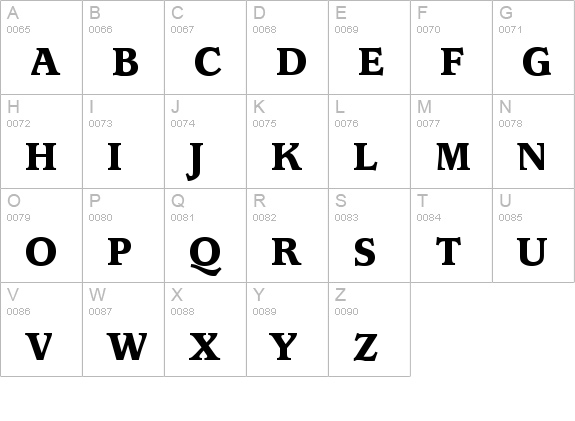
UsherwoodEF-Black is a maximum-weight, dramatic variant in the UsherwoodEF typeface family \xE2\x80\x94 well suited to maximum-impact headlines, posters, and packaging.
Introducing UsherwoodEF-Black, a sleek and sophisticated font that exudes elegance and timeless style. With its bold and powerful letterforms, this font commands attention and makes a lasting impression. Perfect for headlines, logos, and any design project that requires a touch of sophistication. UsherwoodEF-Black is a versatile typeface that effortlessly blends classic and contemporary elements, making it suitable for a wide range of applications. Its clean lines and strong presence make it an excellent choice for branding and corporate materials, while its unique character and charm make it equally suitable for creative and artistic endeavors. One of the best things about UsherwoodEF-Black is that it is freely available to download at FontsMarket.com. This means that you can easily access this stunning font and start incorporating it into your designs without any hassle. Whether you're a professional designer or a beginner, you can now enjoy the benefits of this exceptional font without breaking the bank. UsherwoodEF-Black offers a comprehensive character set, including uppercase and lowercase letters, numbers, punctuation marks, and special characters. Its meticulous design ensures optimal legibility and readability, even at smaller sizes. This makes it a reliable choice for various print and digital projects, from posters and brochures to websites and social media graphics. With UsherwoodEF-Black, you can elevate your designs and create a lasting impact. Its timeless appeal and versatility make it a valuable addition to any designer's toolkit. So why wait? Visit FontsMarket.com today and experience the freedom of UsherwoodEF-Black – a font that combines elegance, power, and accessibility.